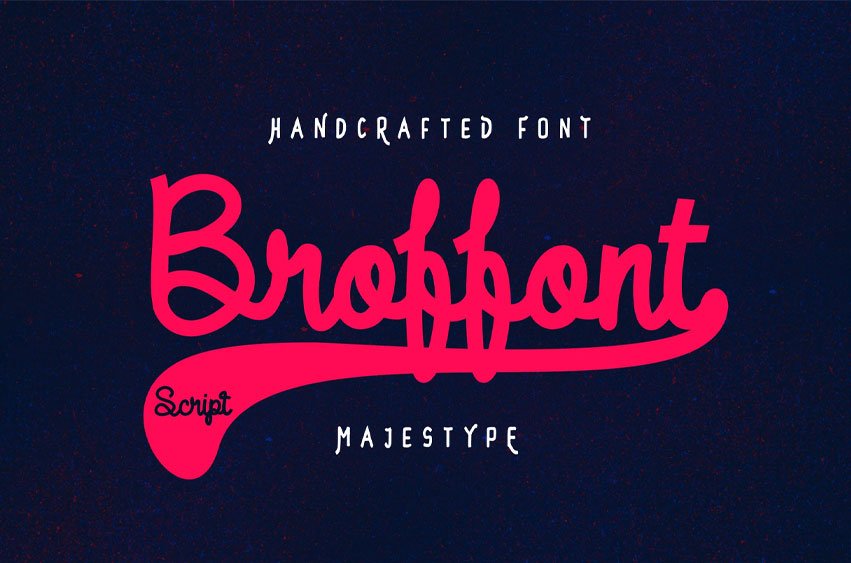
Broffont Font is a script font inspired from baseball logo & Vintage logo. This font have 2 variant that is “Broffont Script & Broffont Script Swash”.
Comes with 322 Glyphs & OpenType feature : Ligatures and Stylistic Alternate.